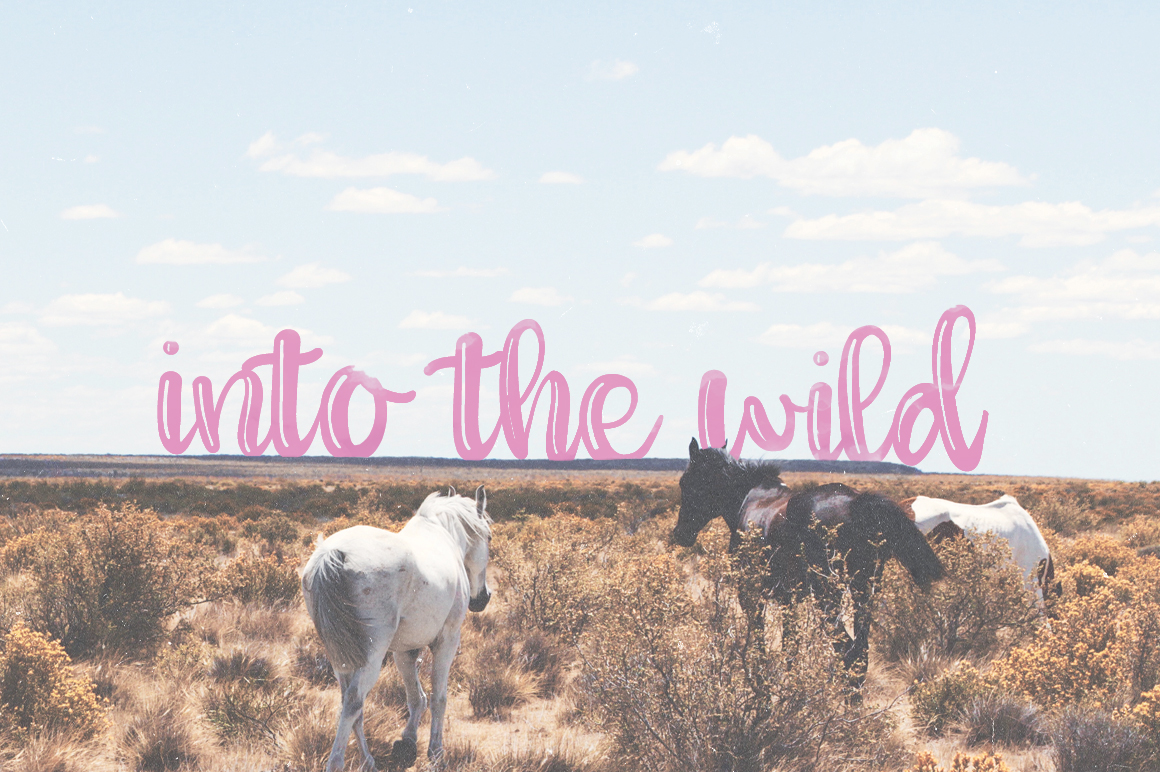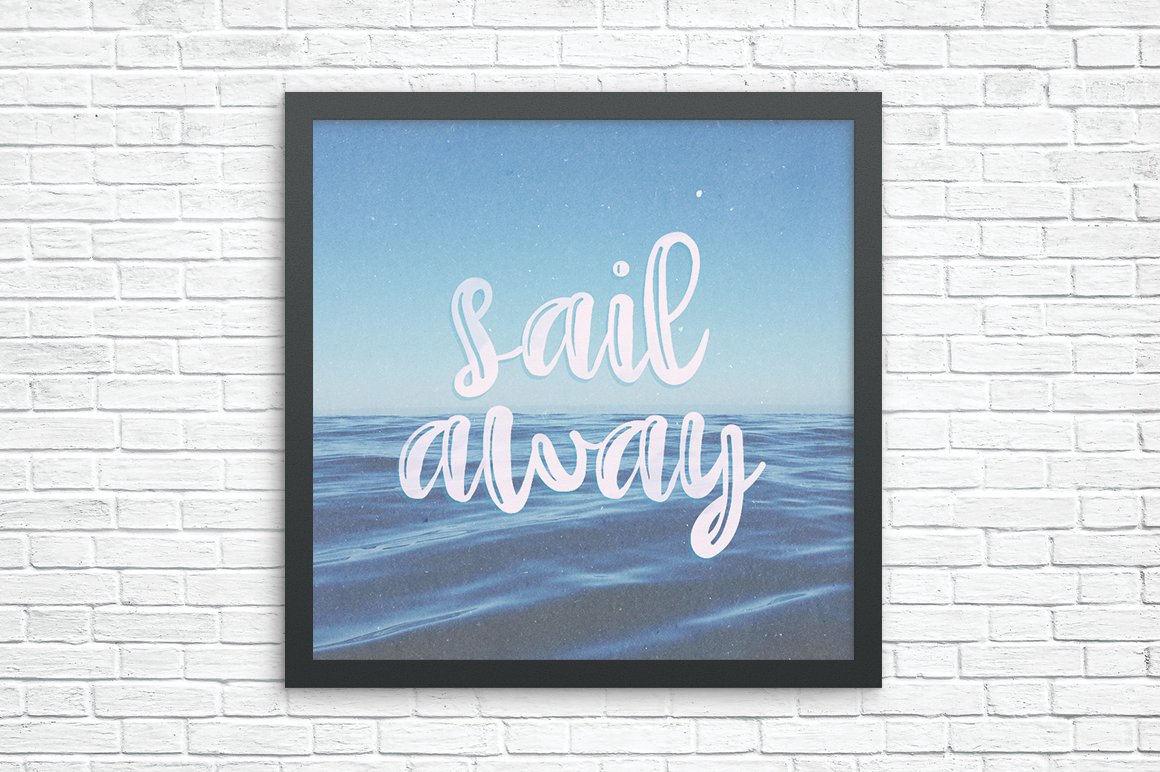
The Willow Script Font
db-ku.com - Script & Handwritten -- The Willow Script is a new thick curly script font, including a transparent shadow within each character.